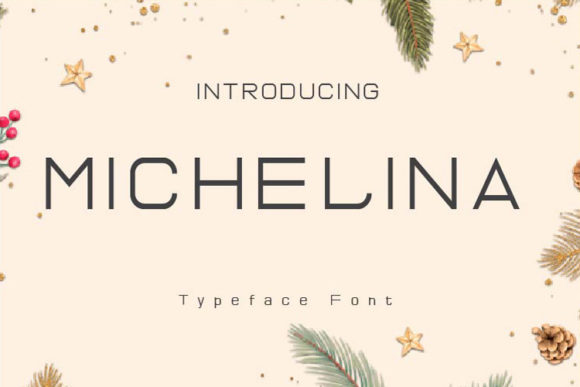
Introducing Michelina Font, the ultimate display font that will transform your designs with its captivating style and versatility. Designed by the creative minds at ed.creative, Michelina is the perfect choice for creating standout projects that demand attention.
Michelina is more than just a font; it's a versatile tool that empowers you to express your creativity like never before. With its sleek and contemporary design, this font is the ideal choice for a wide range of projects, including logos, posters, social media graphics, and more. Let Michelina elevate your designs with its clean lines, elegant curves, and eye-catching presence.
Unleash your imagination and embark on a creative journey with Michelina. Immerse yourself in a world of endless possibilities, where your designs come to life with vibrancy and sophistication. Whether you're a seasoned designer or just starting out, Michelina is the perfect companion for your creative endeavors.
Stand out from the crowd and let your designs shine with Michelina. Its unique and modern style will captivate your audience and leave a lasting impression. Experience the transformative power of Michelina today and see how it revolutionizes your designs.